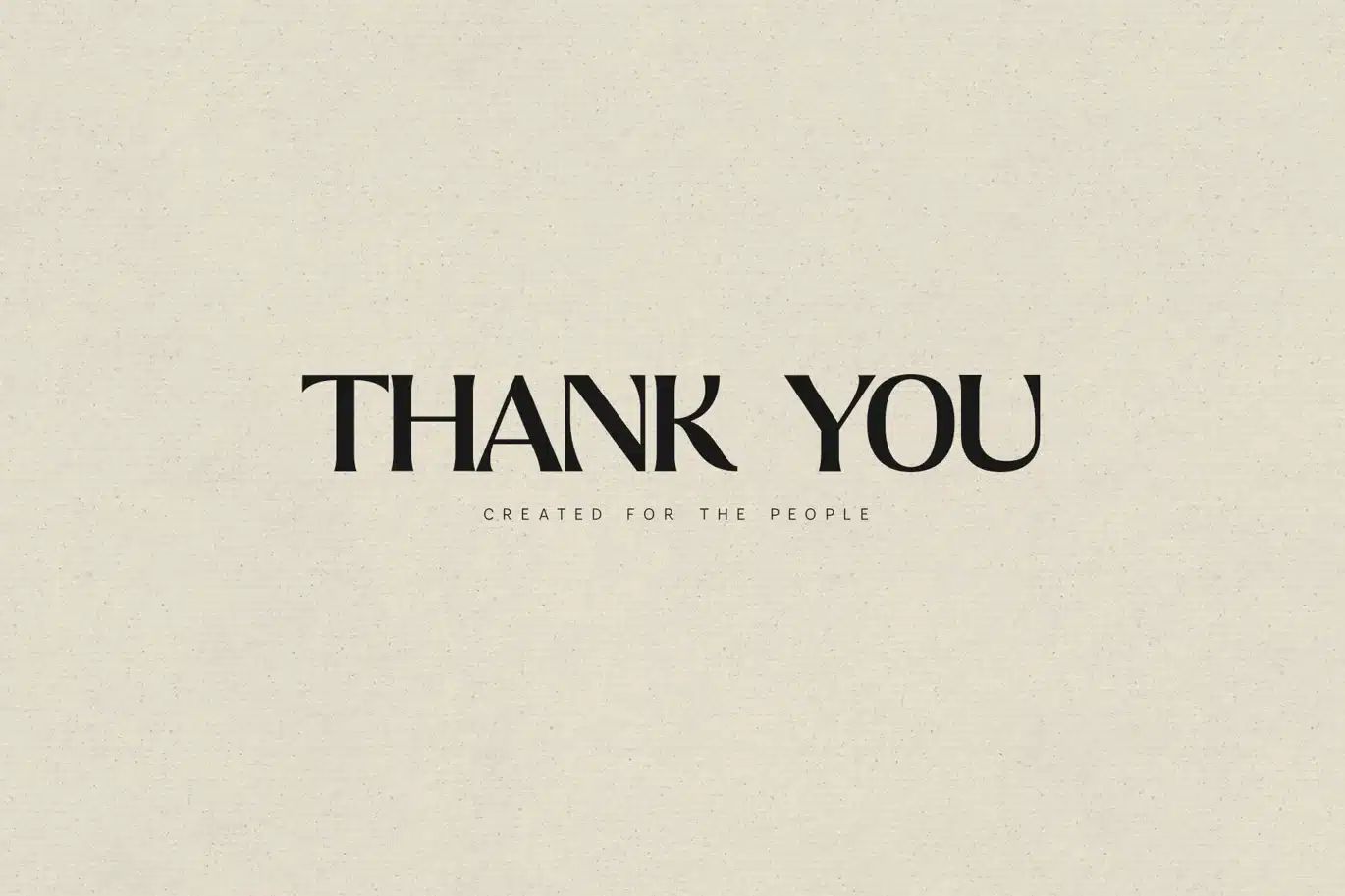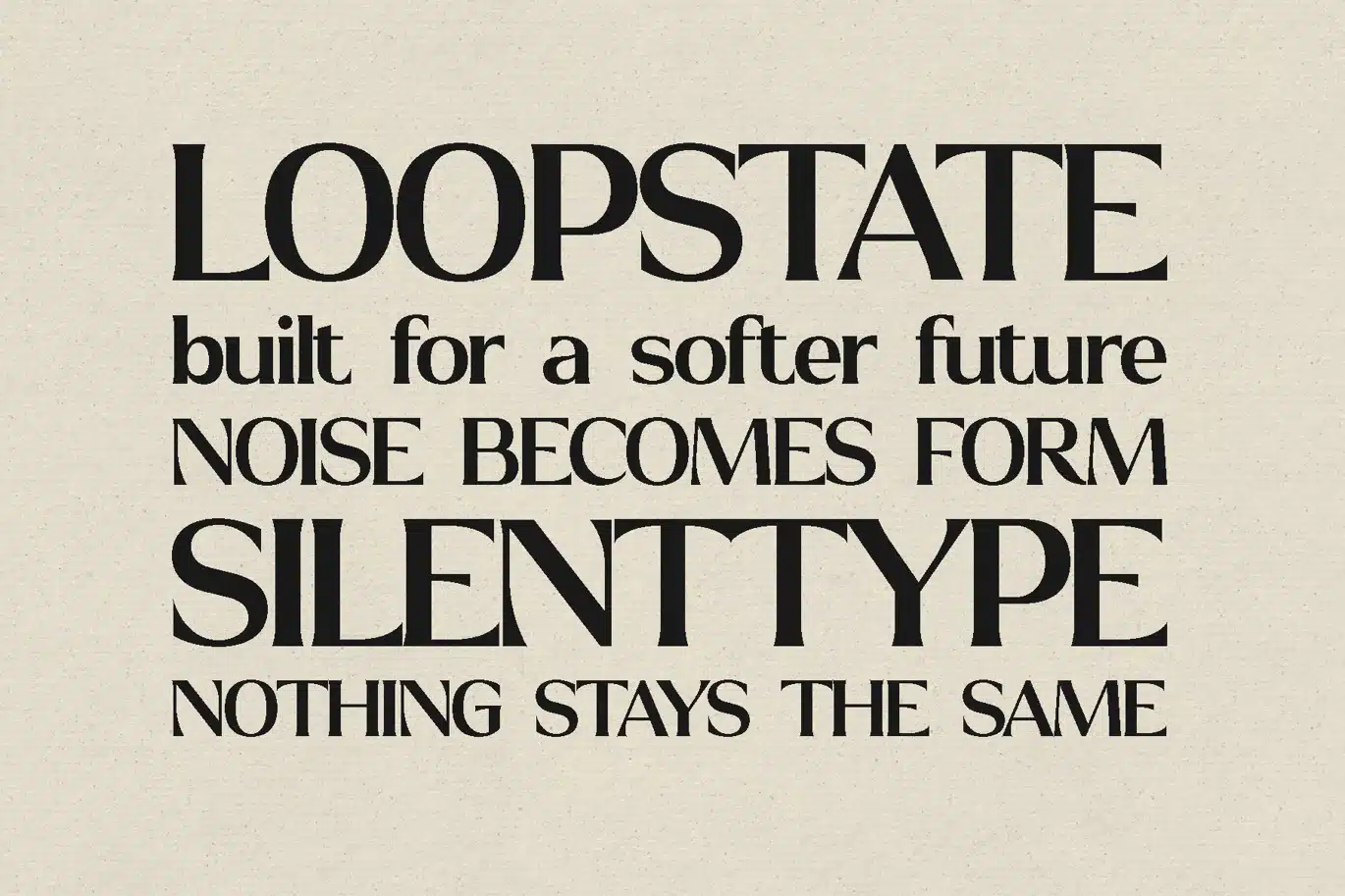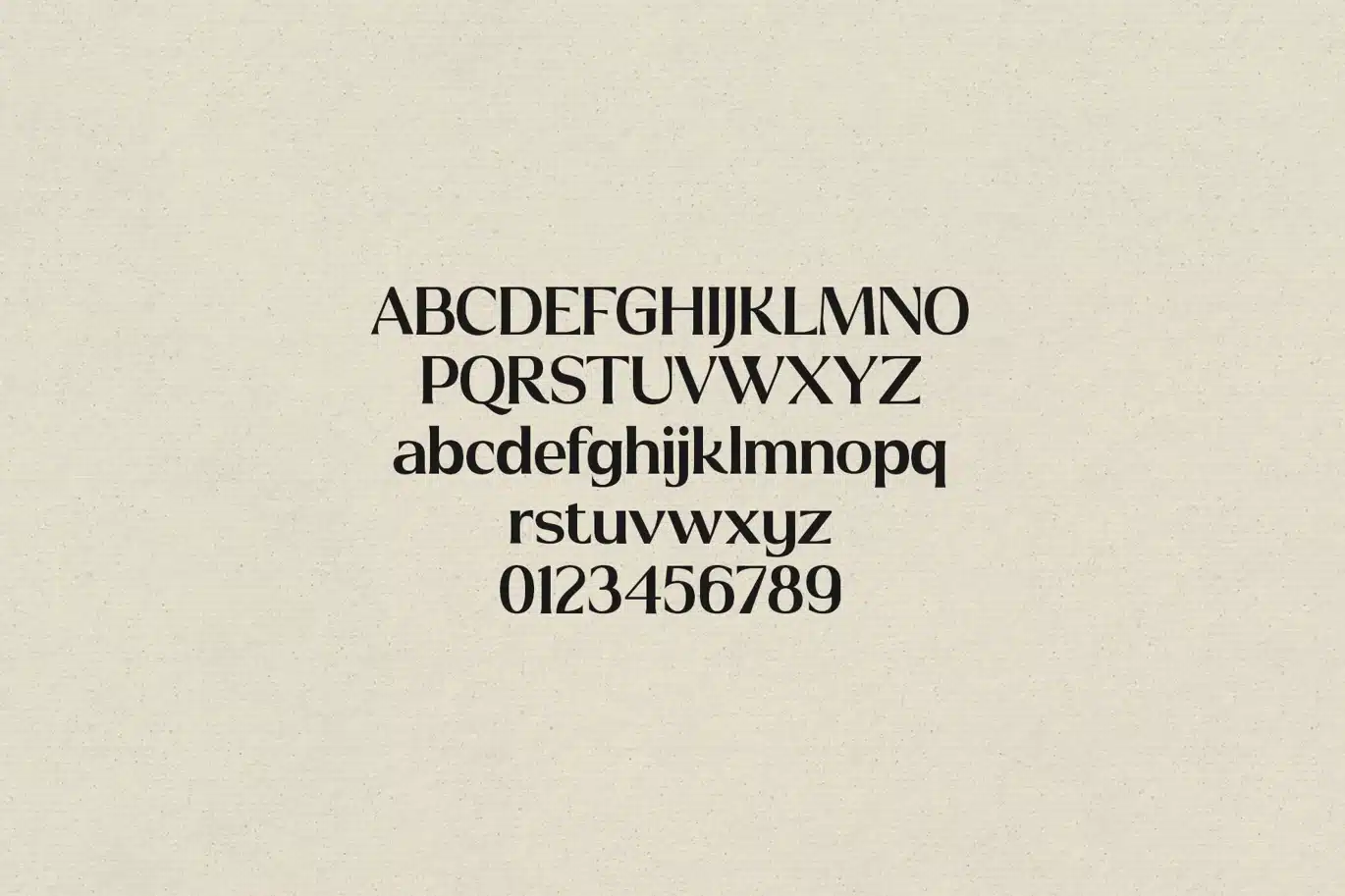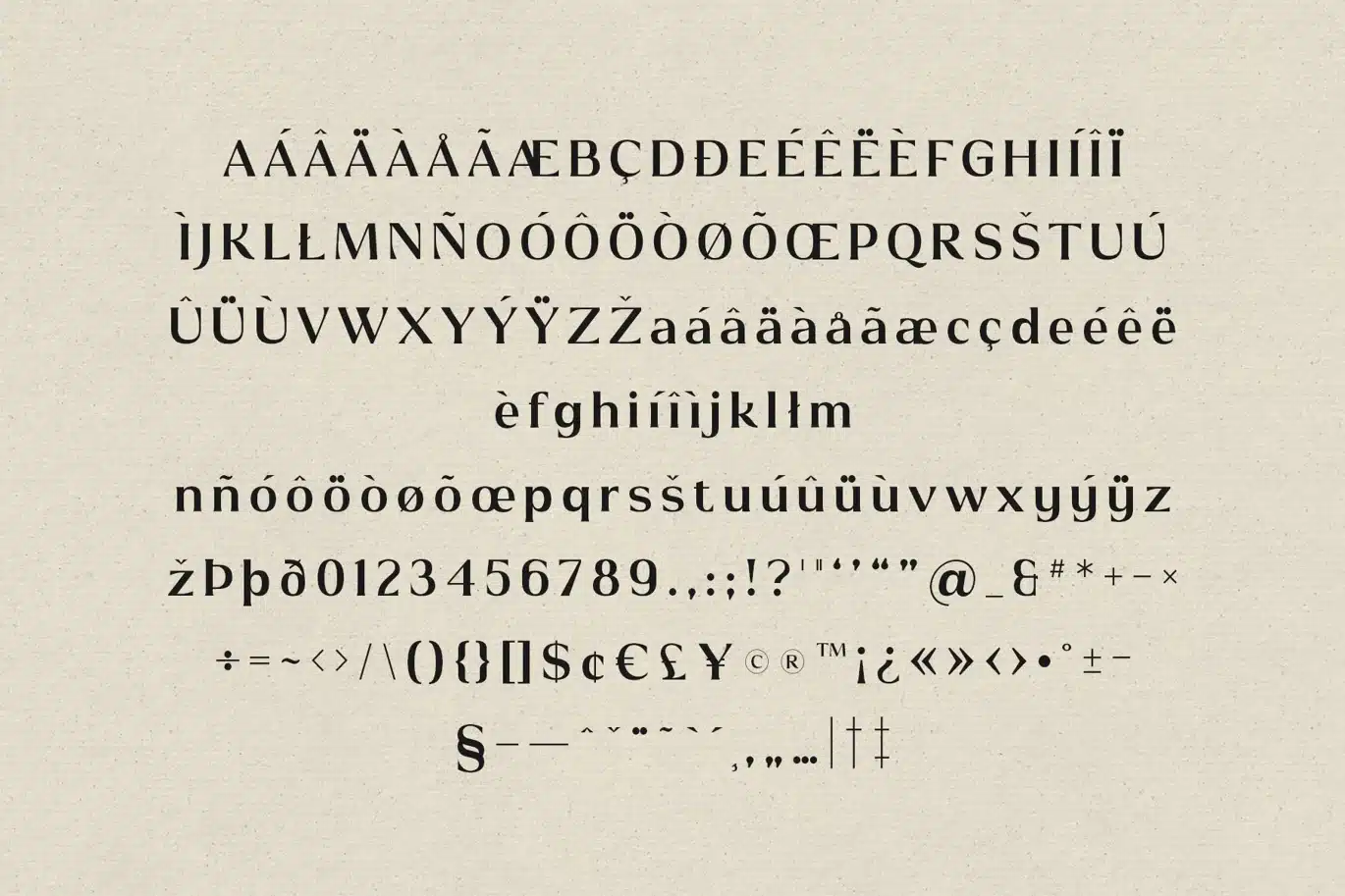
Signa Elegant Serif – Modern Editorial Typeface Font
Signa is a refined serif typeface designed for modern editorial, branding, and high-end design. Built with a strong sense of structure, rhythm, and balance, it delivers a clean yet distinctive presence across a wide range of creative applications.
With its elegant contrast and carefully crafted letterforms, Signa blends timeless serif foundations with a contemporary aesthetic. It feels both calm and powerful, making it ideal for designers who want to create sophisticated and visually striking work.
From luxury branding and logos to editorial layouts and packaging, Signa adapts effortlessly while maintaining a premium look and feel.
✨ Perfect for
• Branding & identity
• Logos & wordmarks
• Editorial & magazines
• Packaging design
• Fashion & beauty
• Social media & Canva
🔤 Features
• Uppercase & lowercase
• Numbers & punctuation
• Multilingual support
• Clean kerning & spacing
• Elegant serif design
• High readability